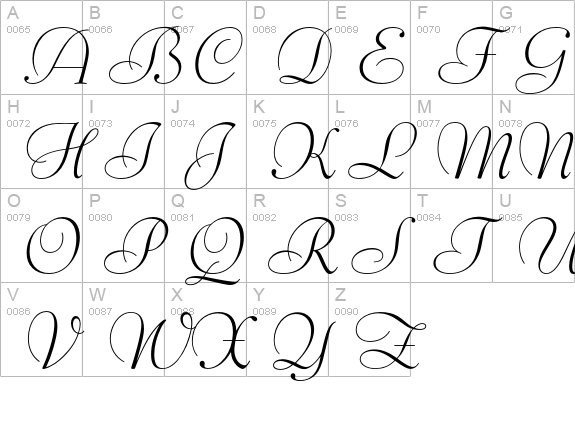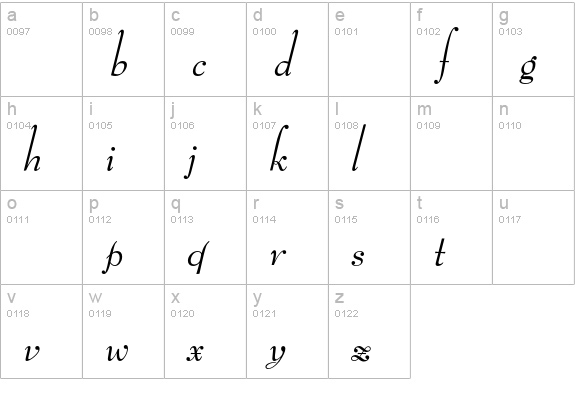
Bernhard Modern Italic Swash Font Details
Bernhard Modern Italic Swash is a distinctive, italic variant in the Bernhard typeface family \xE2\x80\x94 well suited to design and typography projects.
The Bernhard Modern Italic Swash font is a stylish and elegant typeface that exudes sophistication and charm. With its graceful swashes and delicate curves, this font is perfect for adding a touch of class to any design project. Whether you're creating invitations, branding materials, or editorial layouts, the Bernhard Modern Italic Swash font will elevate your work to new heights. Best of all, this exquisite font is available for free download at FontsMarket.com. Simply visit the website to access this beautiful typeface and enhance your designs with its timeless appeal. Don't miss out on the opportunity to add the Bernhard Modern Italic Swash font to your font collection today!